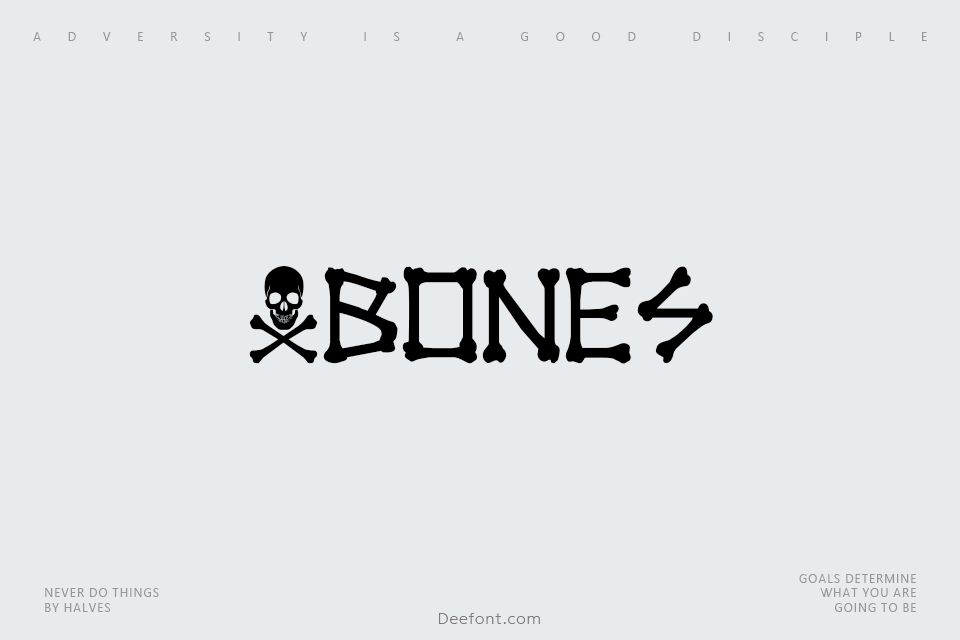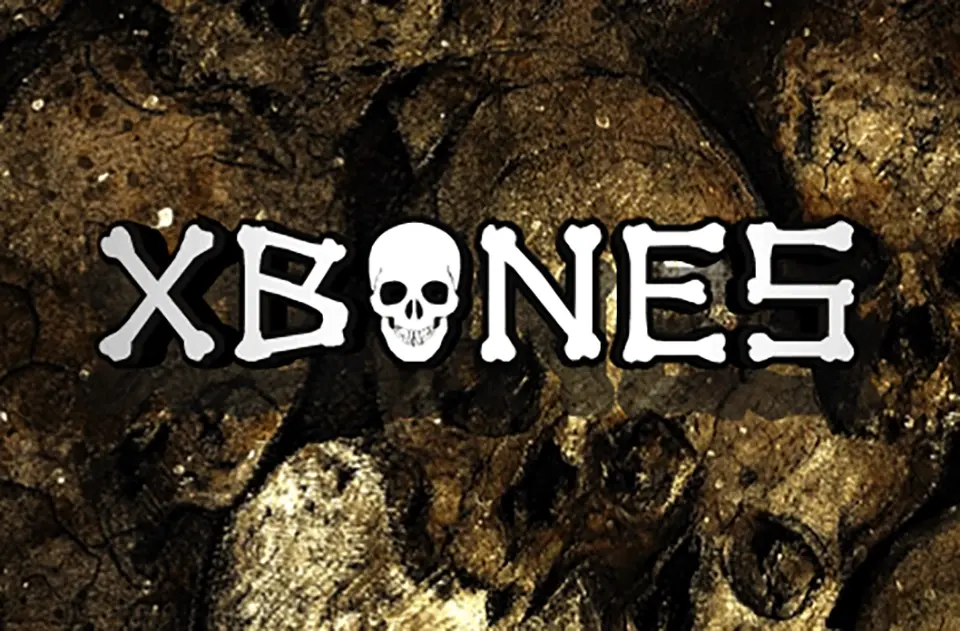
Xbones Font
Xbones is a distinctive decorative font featuring bone-themed design elements with a playful, spooky aesthetic. Created by Iconian Fonts, this typeface includes 20 stylistic variations offering multiple design options for creative projects. The font combines whimsical bone imagery with versatile typographic versatility, making it suitable for display and headline purposes across various creative applications.